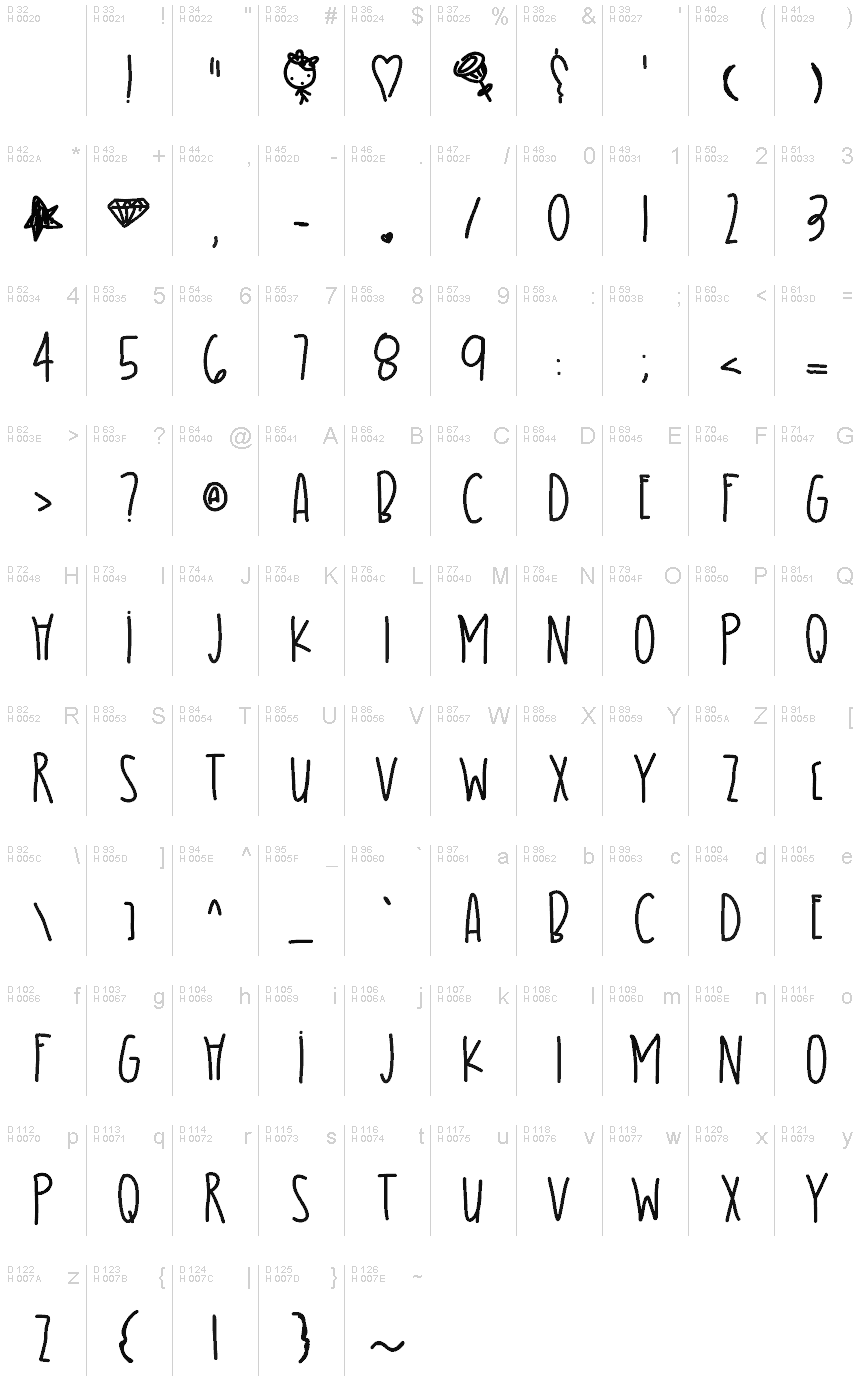
PrettyGirl
"Pretty Girl" is a light, condensed handwritten font designed by Des Gomez. Its playful, whimsical strokes evoke a sense of youthful charm and effortless elegance. The varied line weights and organic flow create a distinctive, hand-lettered aesthetic, making it well-suited for a range of design applications, from wedding invitations and greeting cards to branding and product packaging. The condensed width allows for efficient use of space without compromising the font's visual appeal, making it a versatile choice for both print and digital mediums.
This font's unique personality and versatility make it a compelling option for designers seeking to inject a touch of personality and warmth into their projects.